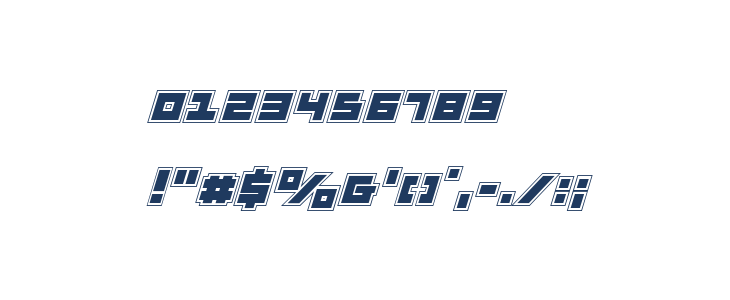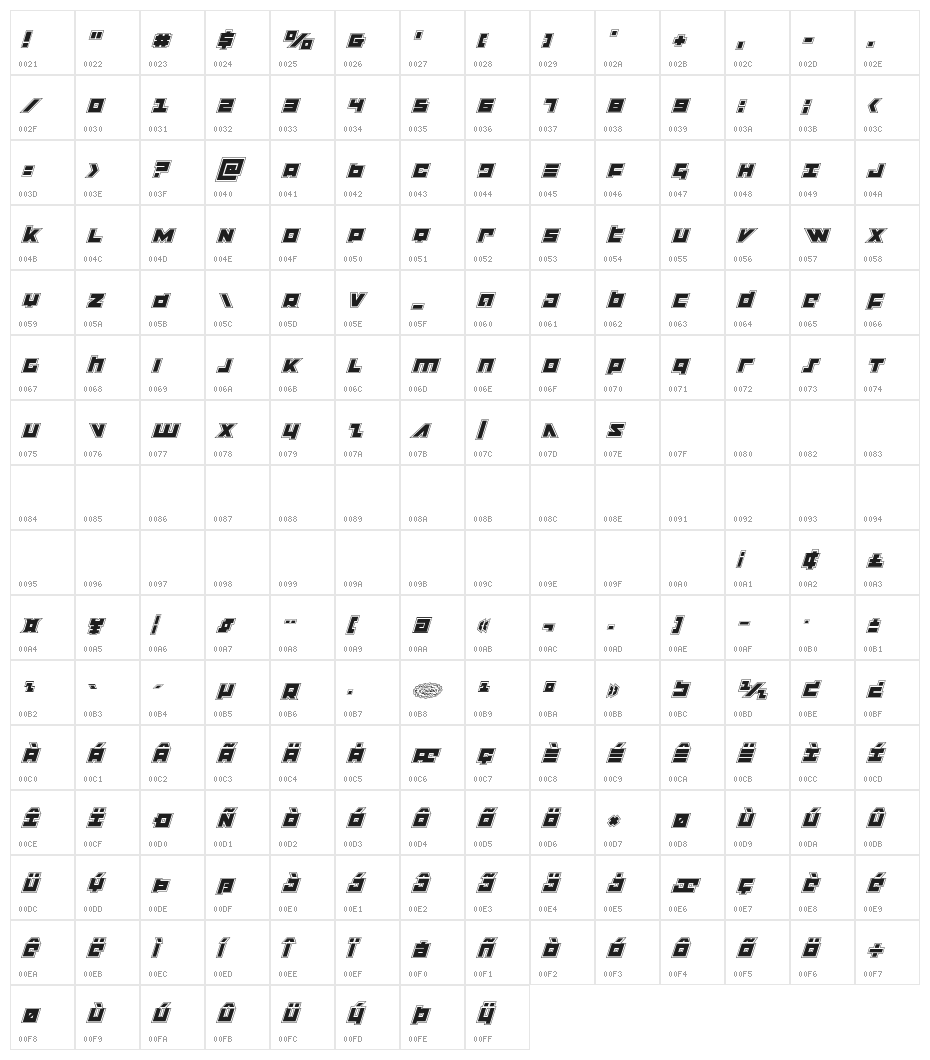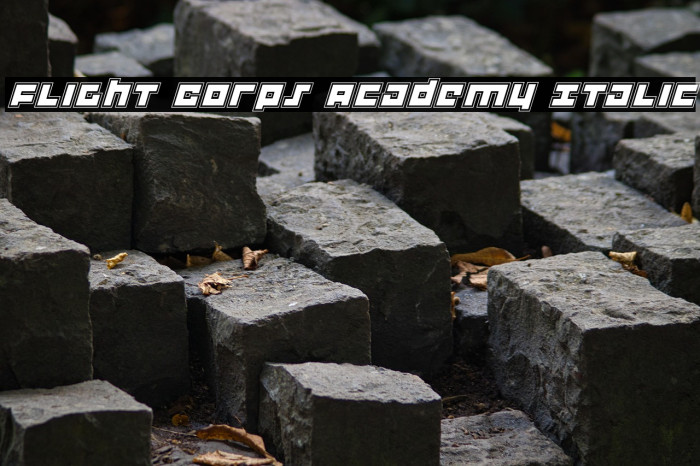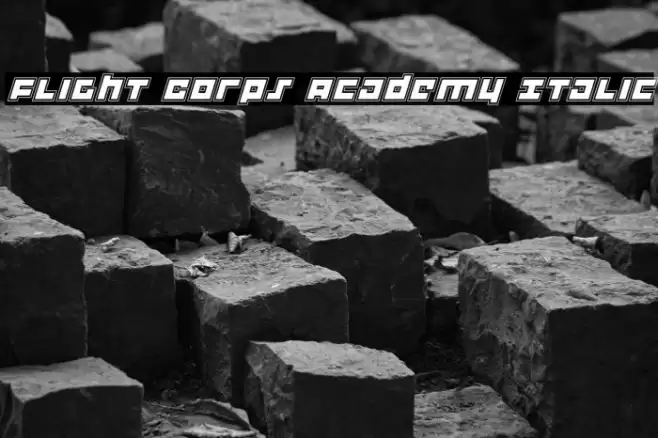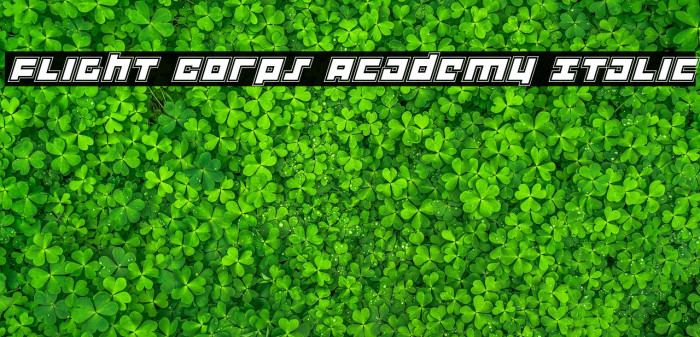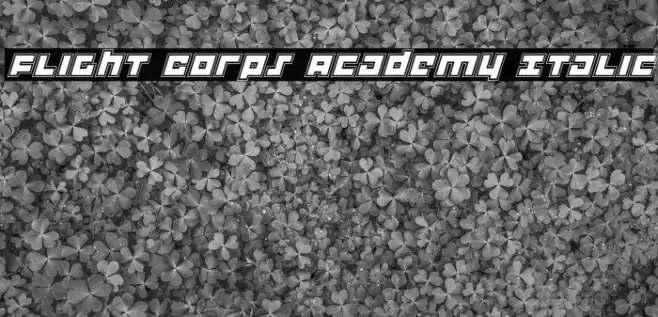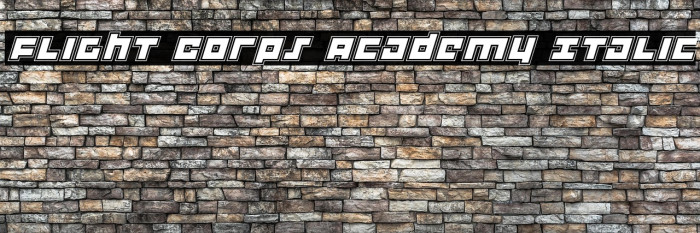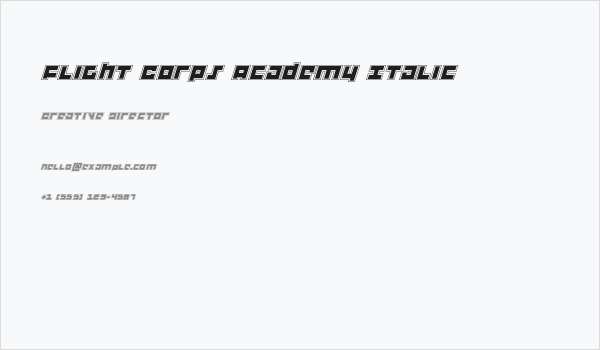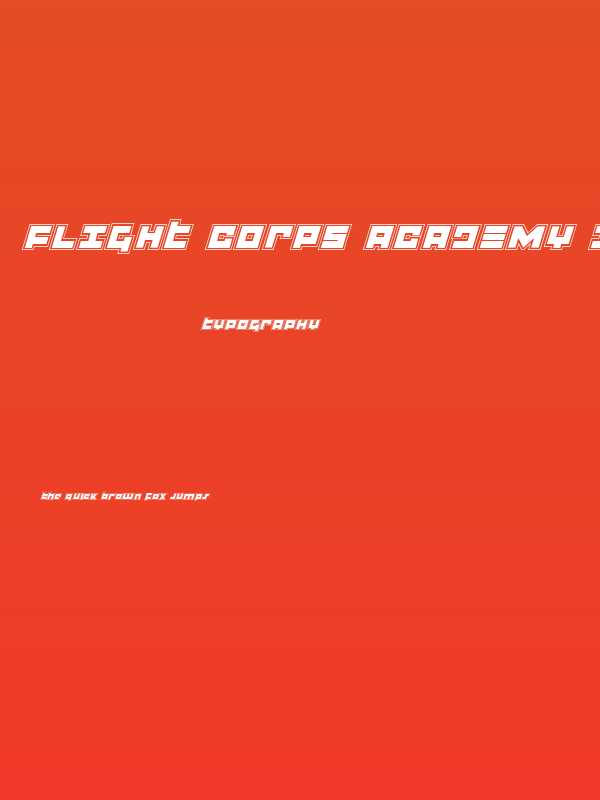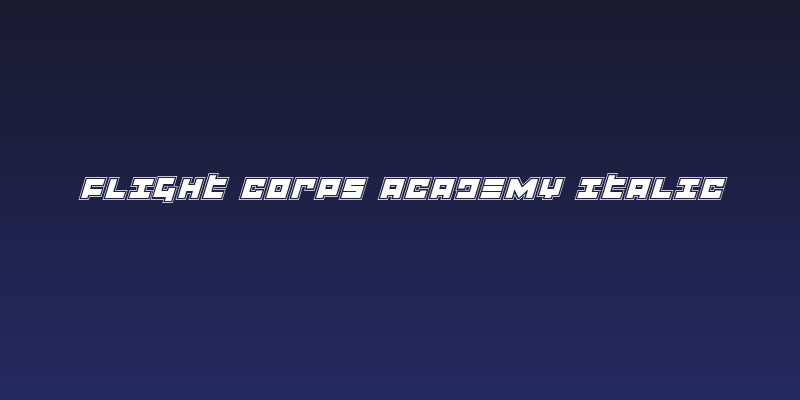
Flight Corps Academy Italic Font
Flight Corps Academy Italic Description
This font features a bold, geometric design with a distinct italic slant, giving it a dynamic and futuristic appearance. The characters are outlined with a thick border, enhancing their visibility and impact. The angular shapes and sharp edges contribute to a modern, tech-inspired aesthetic. The uppercase and lowercase letters maintain a consistent style, with the lowercase mirroring the uppercase in form and structure. Numbers and special characters follow the same design principles, ensuring uniformity across all glyphs. The font's boldness and unique style make it ideal for projects that require a strong visual presence.
| Proposed Projects | Ideal for sci-fi themed designs, video game titles, technology branding, and futuristic posters. |